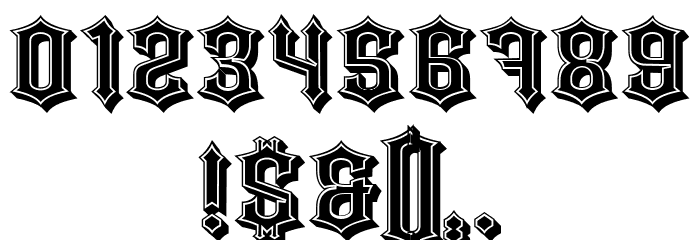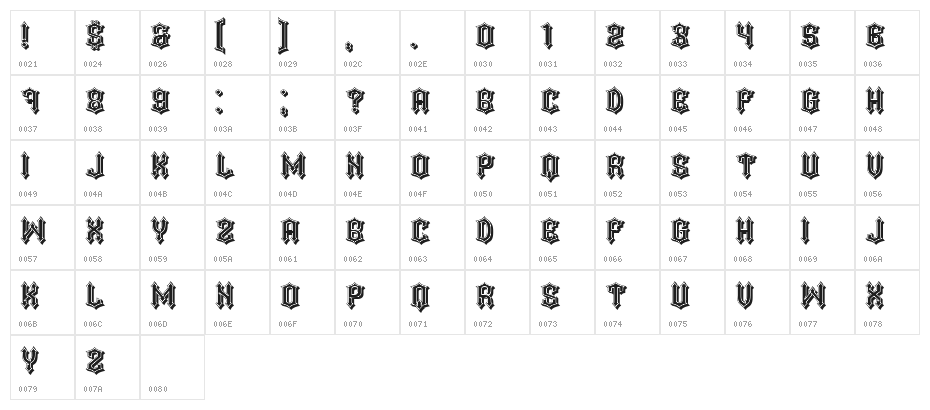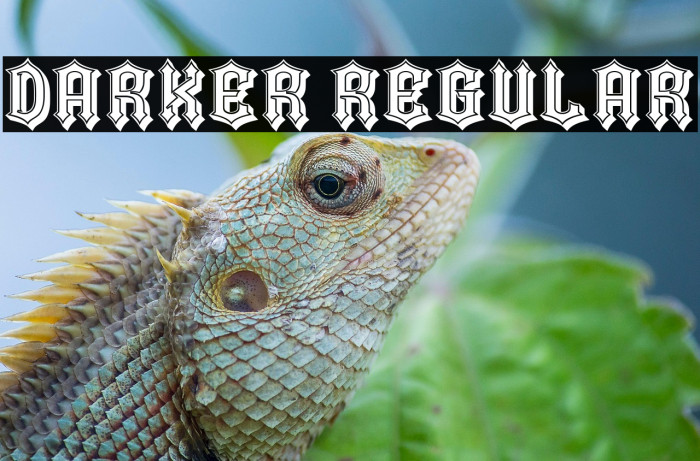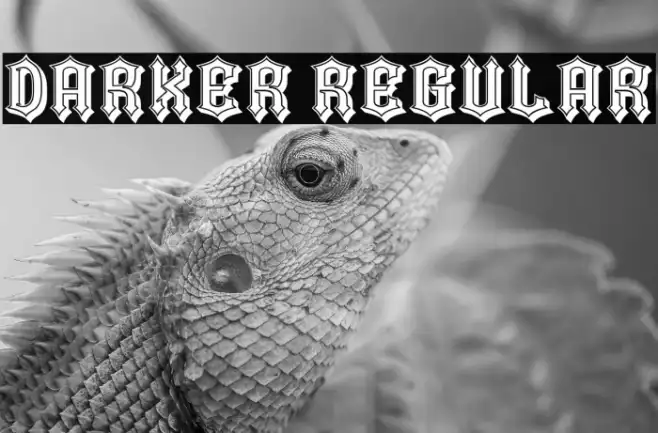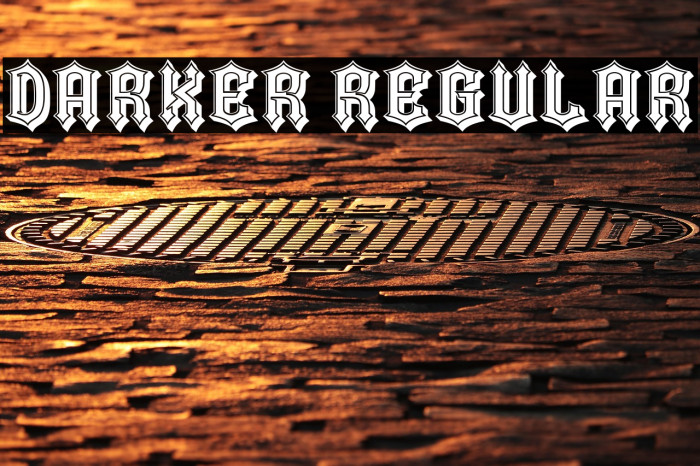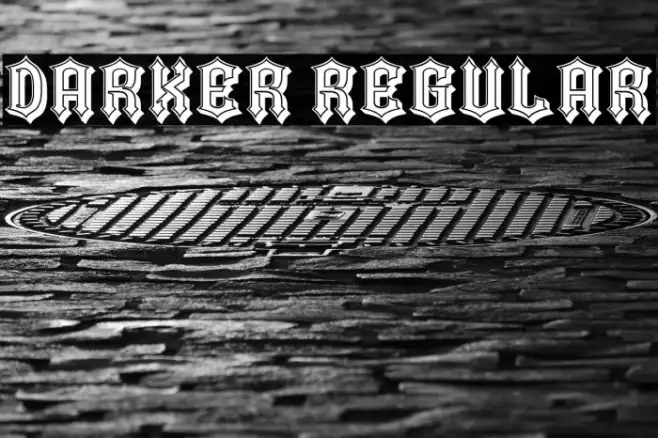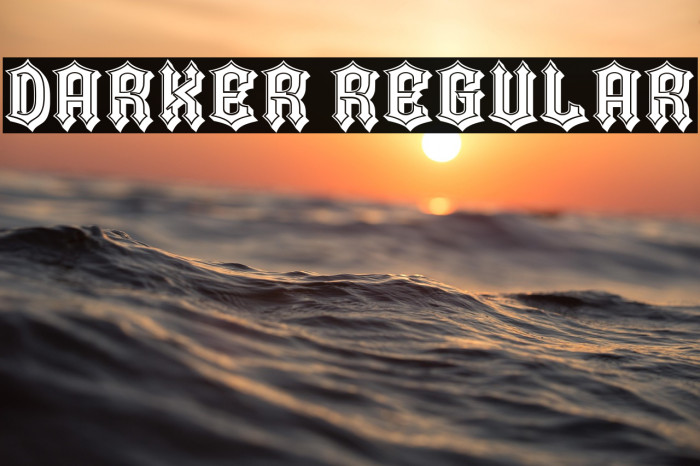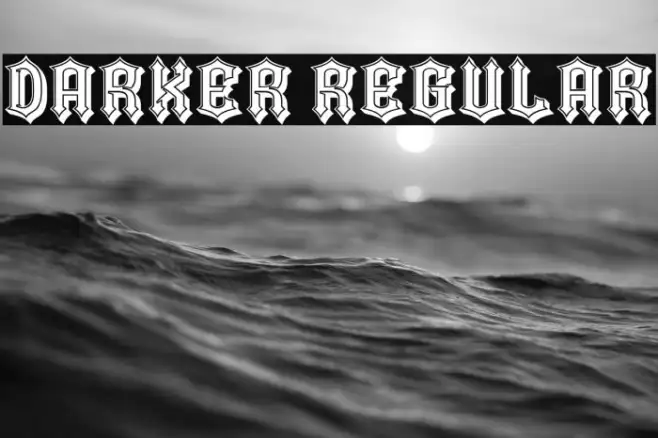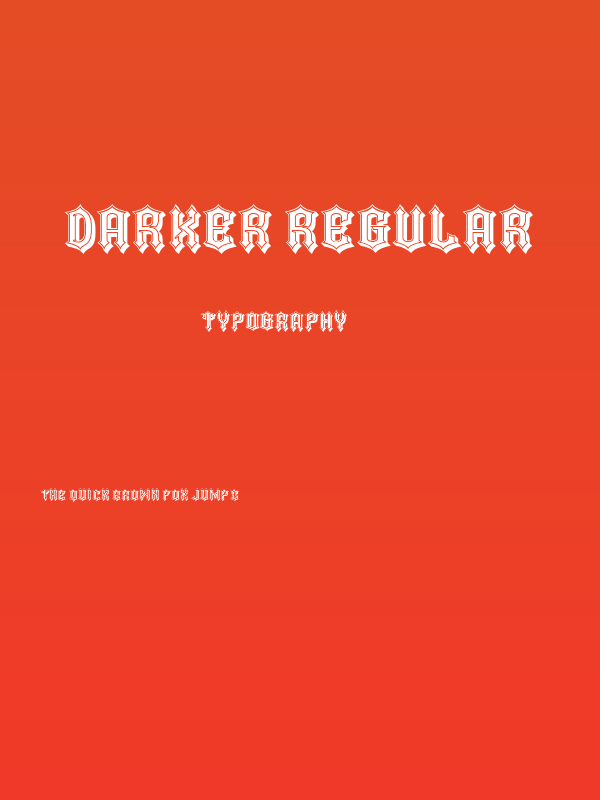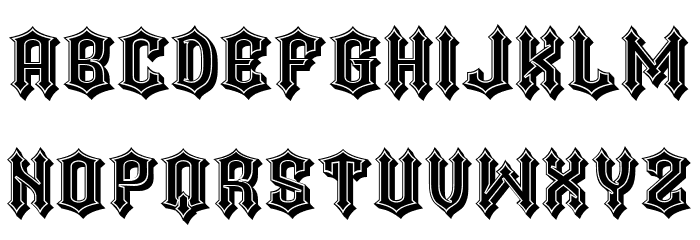
Darker Regular Font
Darker Regular Description
This font features a bold, gothic style with sharp, angular edges and intricate detailing. The characters are heavily stylized, with a strong emphasis on vertical lines and pointed serifs, giving it a medieval and dramatic appearance. The uppercase and lowercase letters maintain a consistent design, creating a cohesive look across the alphabet. The numerals and special characters are equally ornate, enhancing the font's decorative nature. This typeface is ideal for projects that require a striking and impactful visual presence.
| Proposed Projects | Ideal for tattoo designs, band logos, posters, and any project needing a dramatic, medieval aesthetic. |